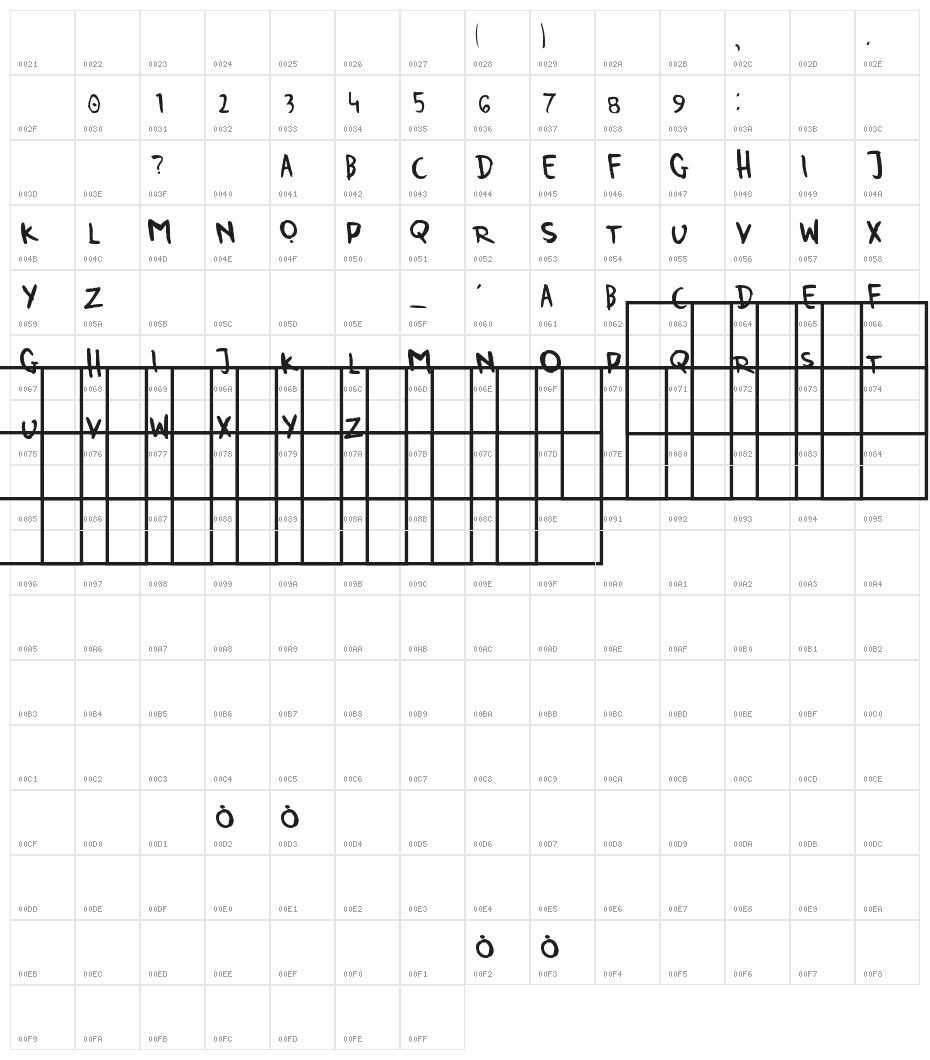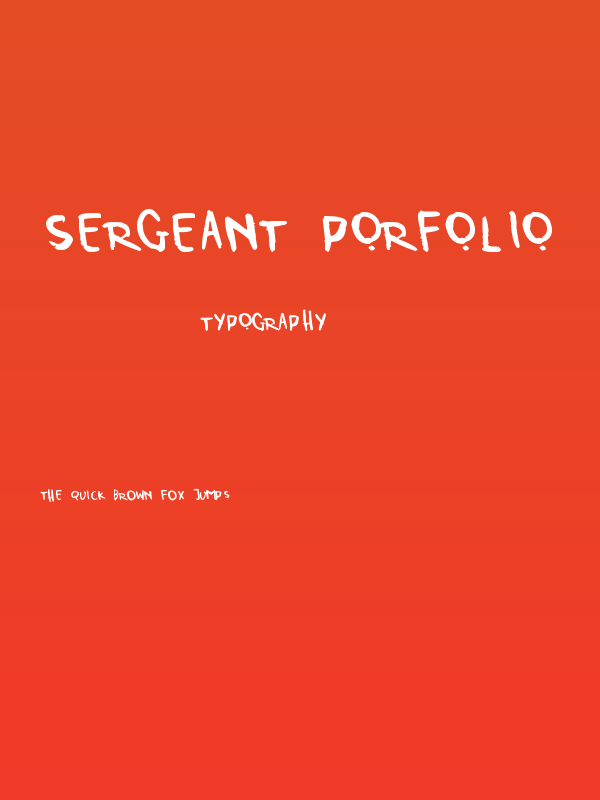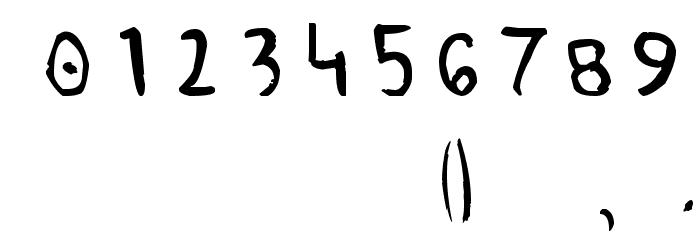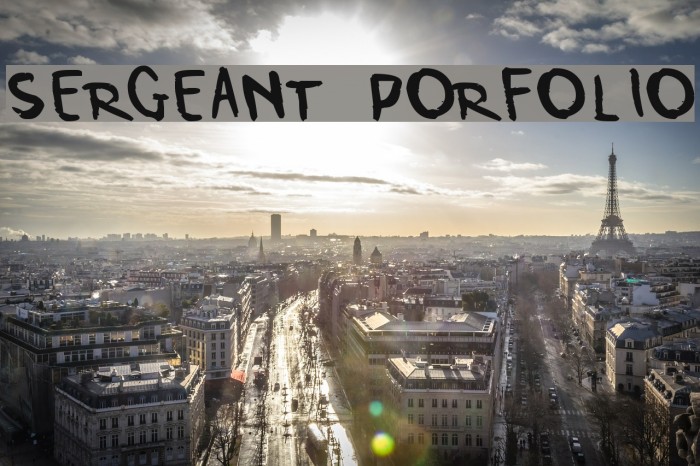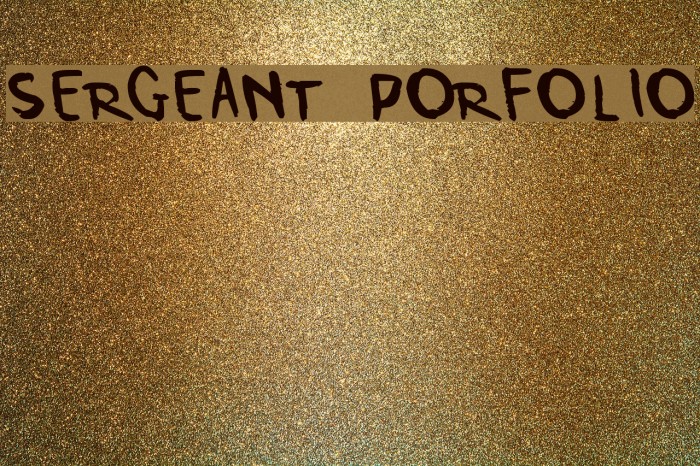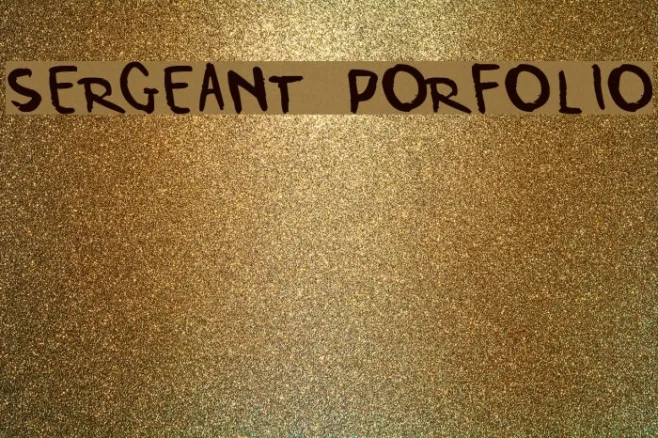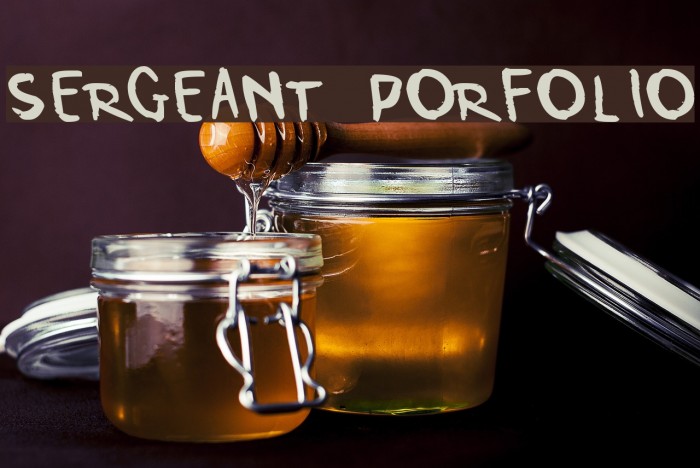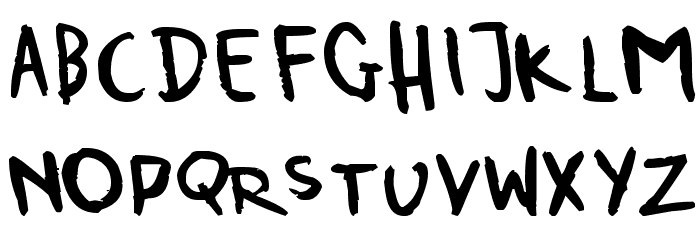
Sergeant Porfolio Font
Sergeant Porfolio Description
This font features a bold, hand-drawn style with a playful and slightly rough texture. The characters have an irregular, organic appearance, giving them a casual and artistic feel. The uppercase and lowercase letters maintain a consistent style, with the uppercase letters being slightly larger and more pronounced. The numbers and special characters follow the same aesthetic, ensuring a cohesive look across all elements. The strokes are thick and uneven, contributing to the font's informal and dynamic personality. This style is reminiscent of hand-painted signs or graffiti, making it stand out with its unique charm.
| Proposed Projects | Ideal for creative projects such as posters, album covers, children's books, and branding for artistic ventures. |